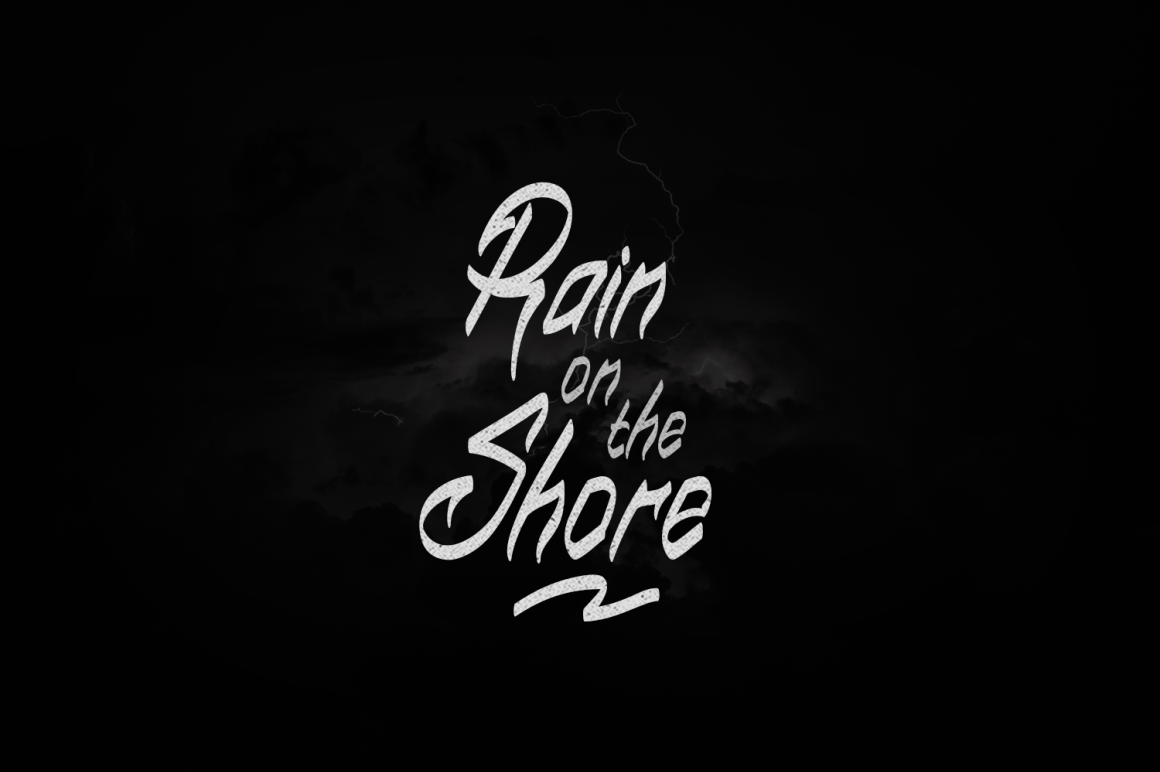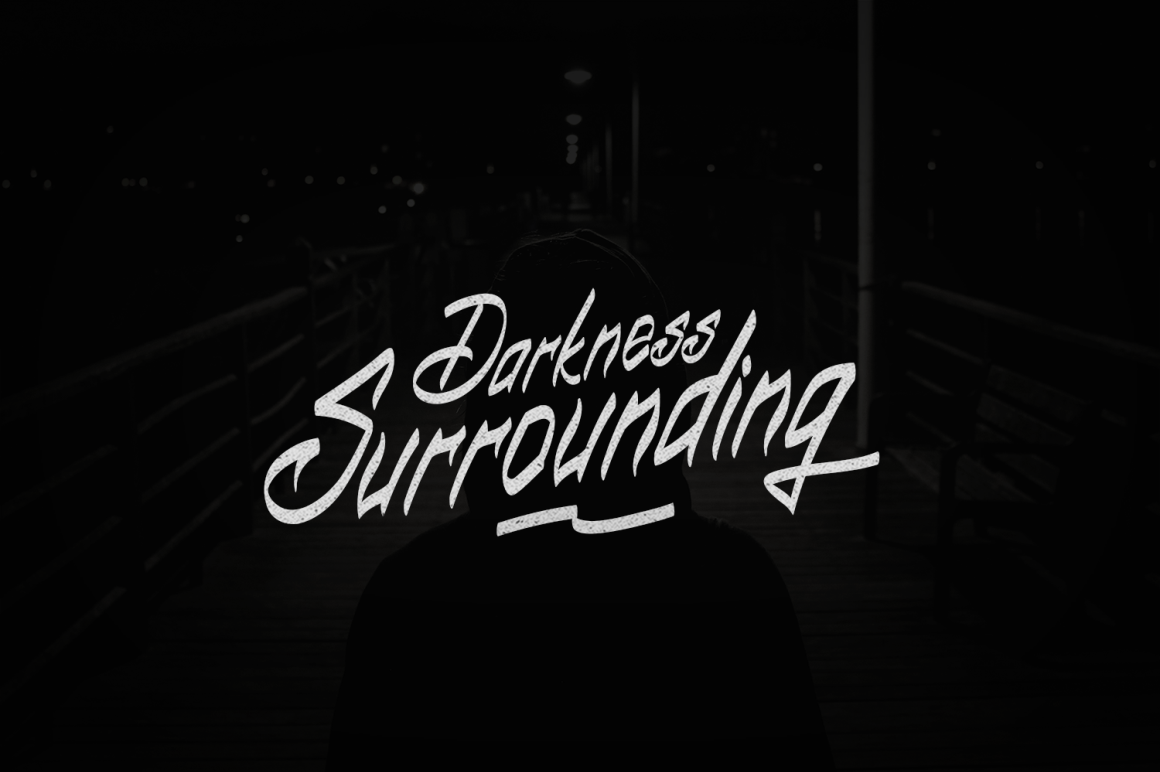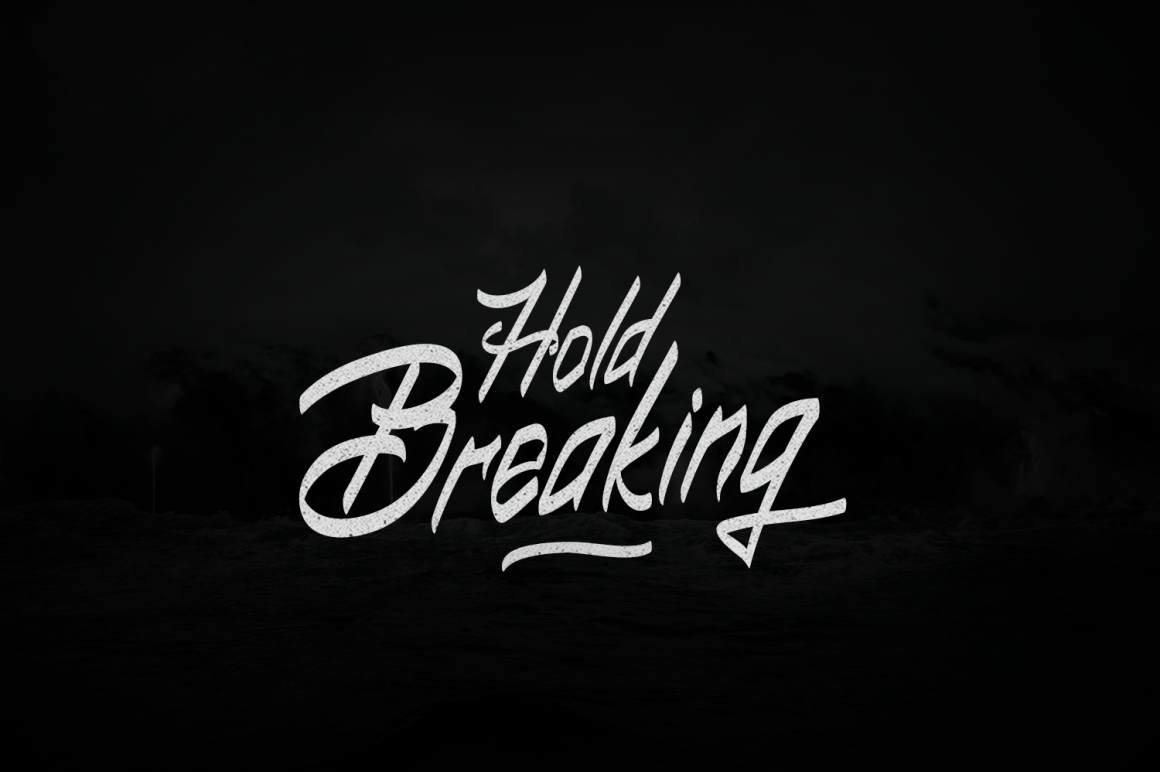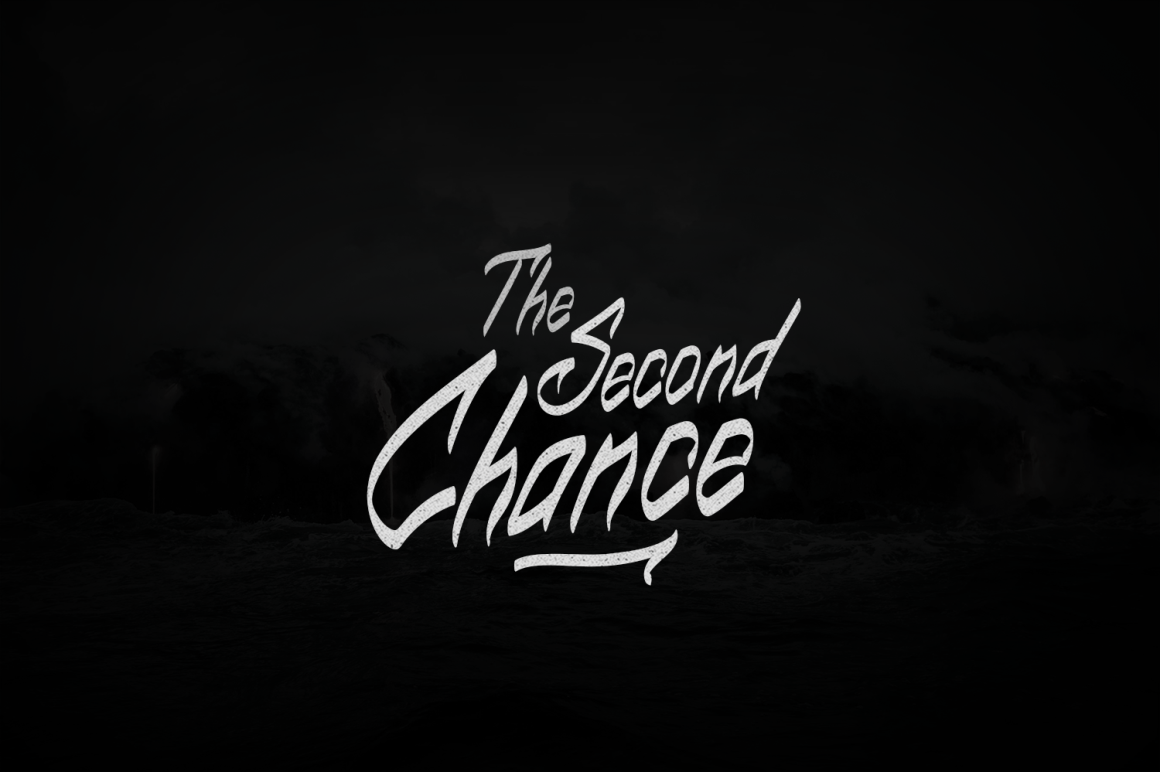
The Perfect Match for Your Next Design Project
Have you ever been stuck in a design rut, staring at a blank page with a deadline looming? You know the feeling – your mind is a jumble of ideas, but none seem quite right. That’s when a little something like the Babball Font comes along and changes everything.
Babball Font is a friendly and casual handwritten font, designed to bring a touch of warmth and personality to your designs. Whether you’re working on a headline, display text, or body copy, this versatile font is sure to deliver. With its stylistic alternates, you’ll have the flexibility to experiment and find the perfect fit for your project.
For designers, the Babball Font is a valuable asset – it’s the perfect tool for adding a human touch to your work and making it truly stand out. So why settle for bland, generic fonts when you can add a dash of personality with the Babball Font?
Babball Font Key Features
- Font Family: Babball Font is a unique, handwritten font with a fun and playful feel.
- Unique Characteristics: Features a distinctive, hand-drawn style with varying line widths, creating a dynamic and expressive feel.
Babball Font Review
I recently had the chance to work with the Babball Font and here’s my honest take.
- Unique aesthetic: The font has a distinct, playful feel that’s perfect for projects that need a touch of whimsy.
- Good legibility: Despite its quirky design, the font is surprisingly easy to read, even at smaller sizes.
- Font weight options: Babball offers a range of weights, from light to bold, which is great for creating visual hierarchy.
- Not ideal for body text: While the font is great for headlines or titles, it may not be the best choice for large blocks of body text.
- Limited language support: Babball may not support all languages or character sets, which could be a limitation for global projects.
The Babball Font is a fun, creative option that’s perfect for projects that need a bit of personality. While it may not be suitable for all types of content, it’s a great choice for titles, headings, and other design elements where you want to add some visual interest. With its unique aesthetic and good legibility, Babball is definitely worth considering for your next design project.
Babball Font is ideal for creating playful and whimsical designs. Use it for:
- Event and festival marketing materials.
For best results, use the font in combination with bold and bright colors to create a lively and eye-catching design.